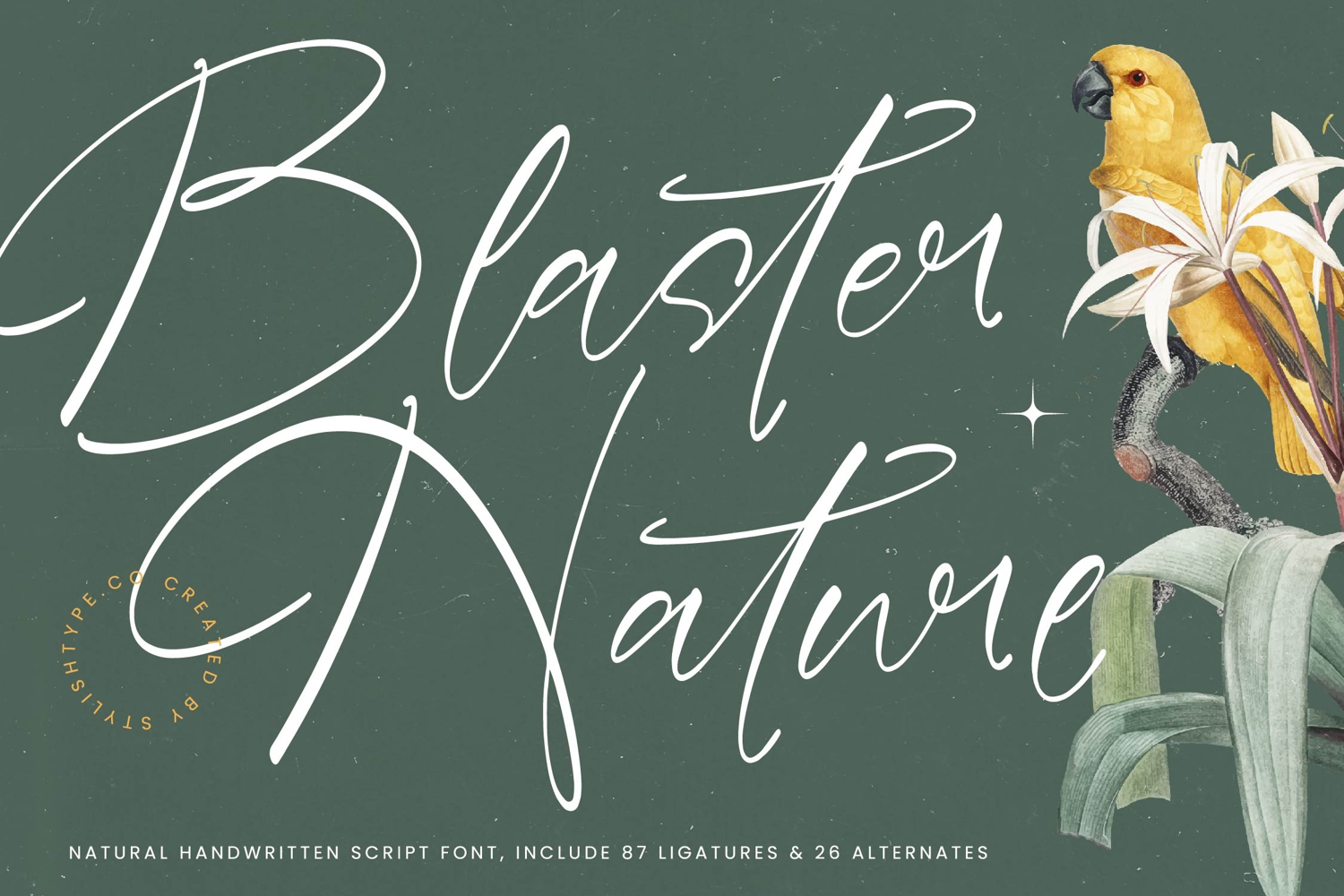
Blaster Nature - Natural Handwritten Script Font
Blaster Nature
Blaster Nature Italic
Blaster Nature - Natural Handwritten Script Font is a beautifully flowing typeface that perfectly captures the spontaneity and charm of genuine handwriting, refined for professional output. Its high-contrast strokes—thin, delicate upstrokes merging into bolder, sweeping downstrokes—create a visual rhythm that demands immediate attention. This signature script provides an immediate sense of luxury and bespoke craftsmanship, making it a standout choice for high-end creative work.